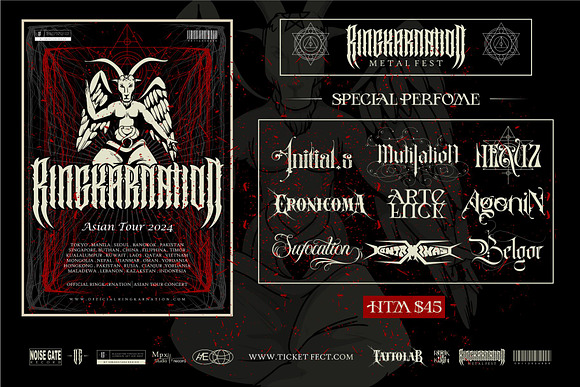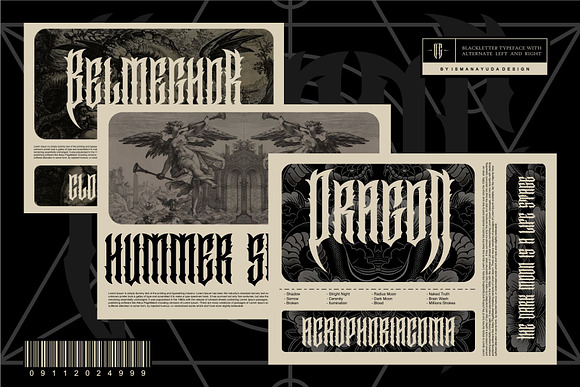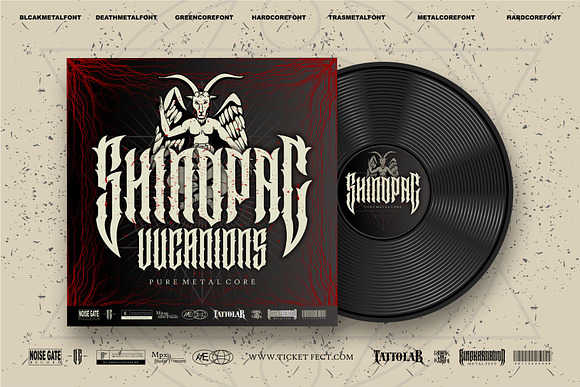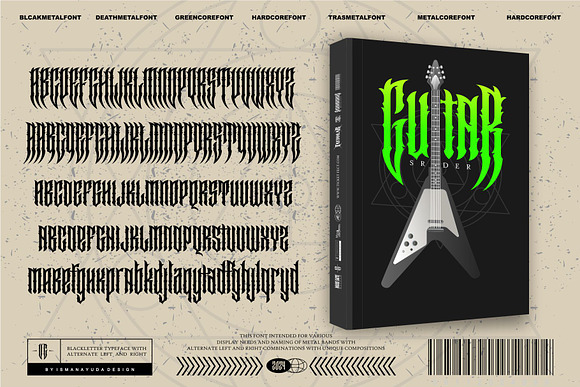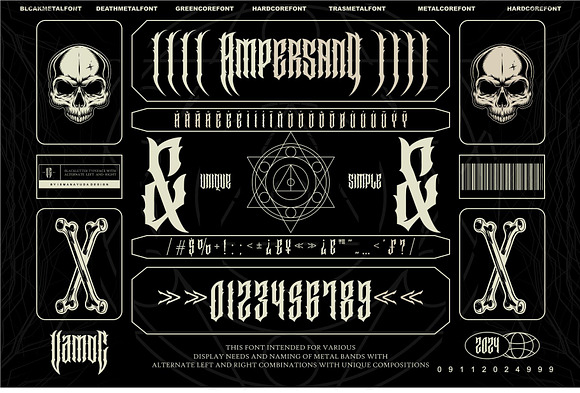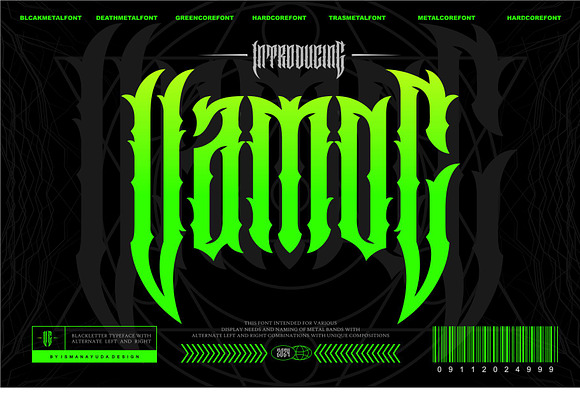
Vamoc Font
Vamoc will be suitable for various projects: books, magazines, logos, branding, photography, quotes, blog headers, posters, advertisements, Band Logos, Band Names, Coffee Shops, Tattoo Studios, etc.